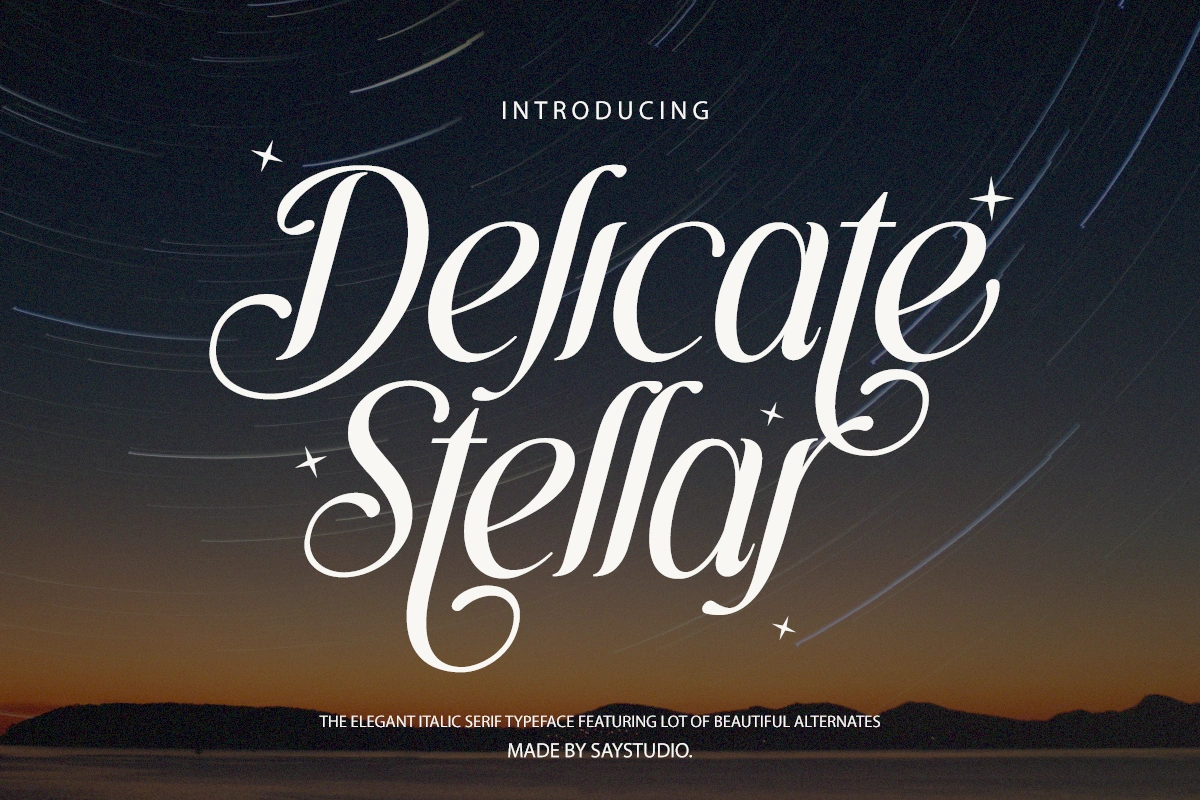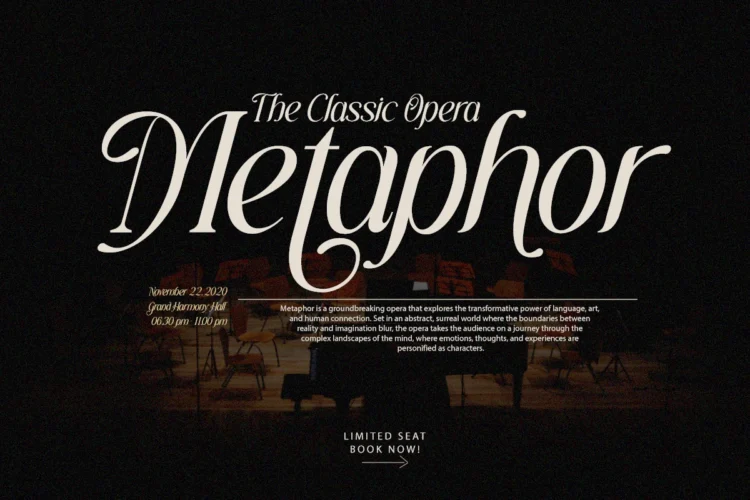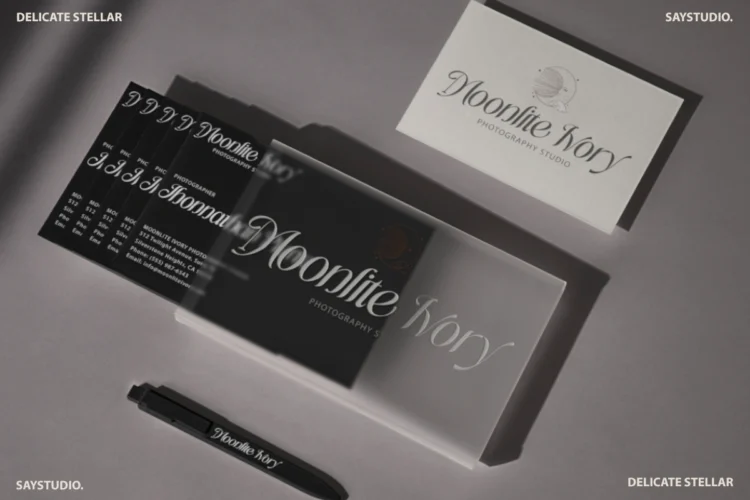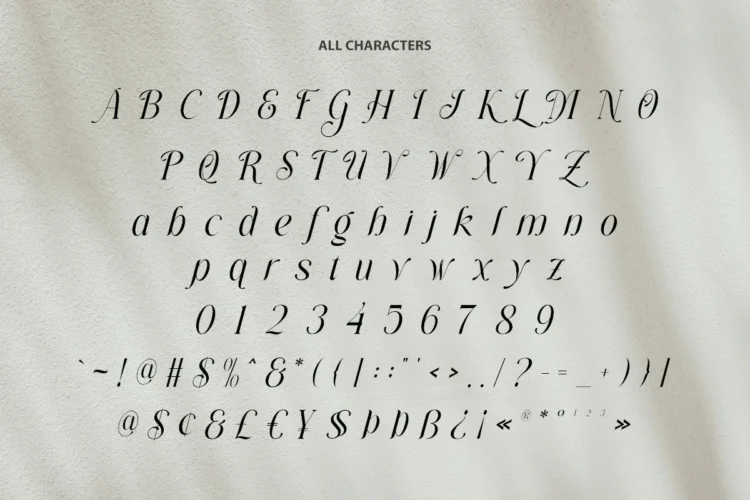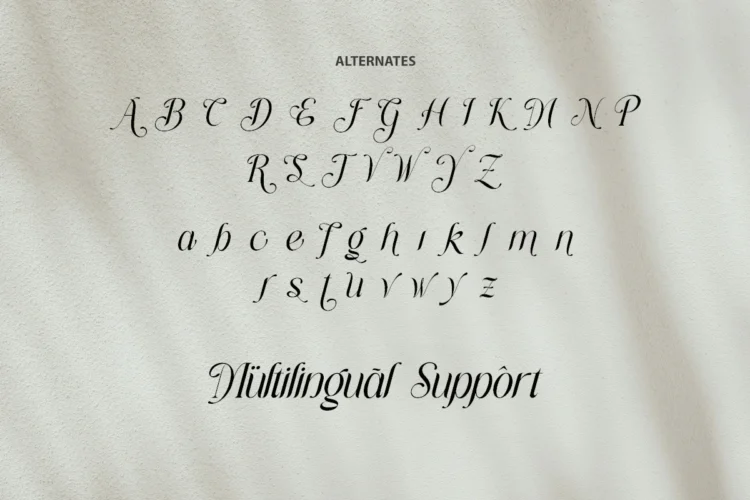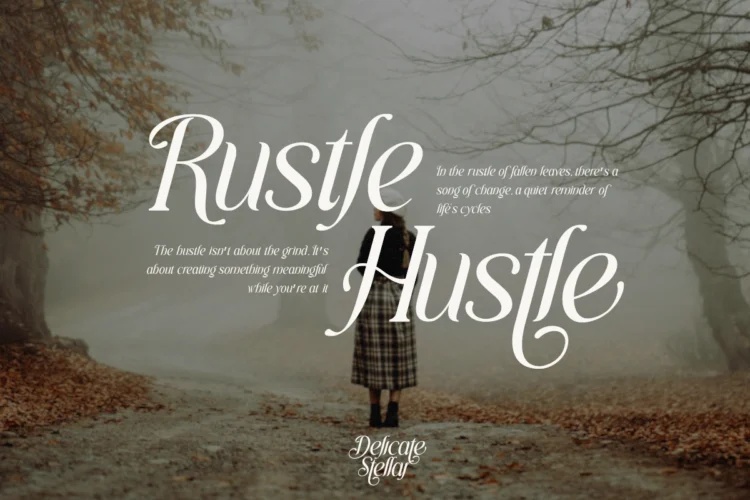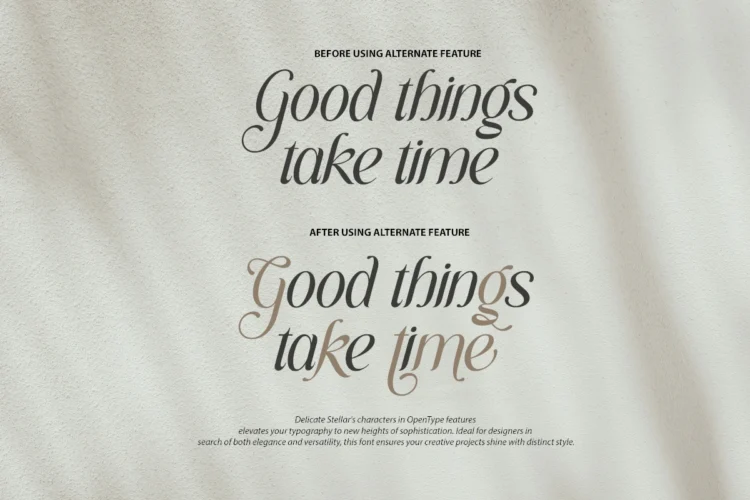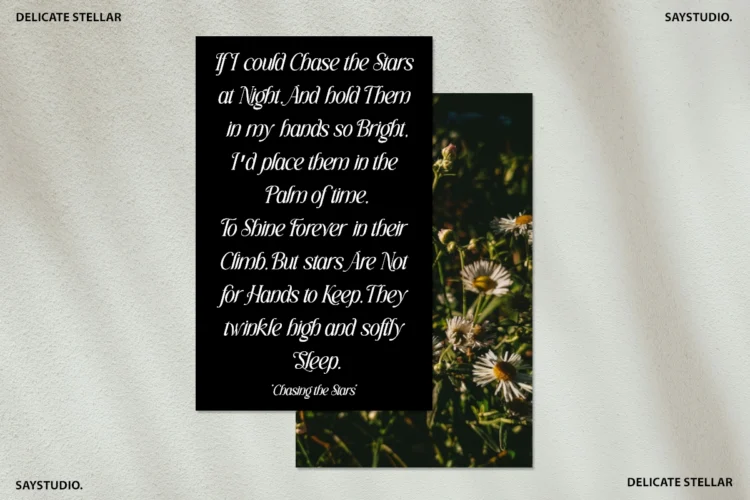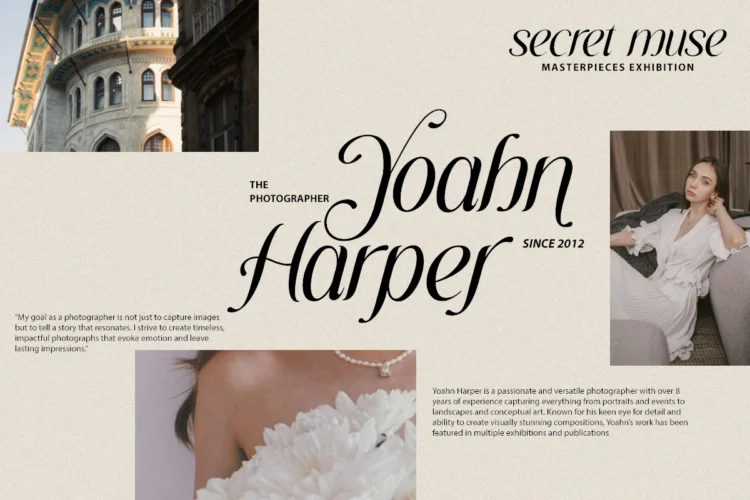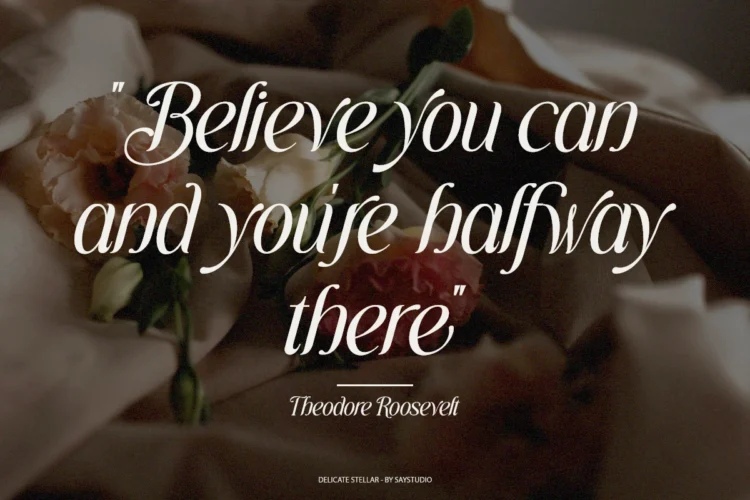
Delicate Stellar – Serif Font
Delicate Stellar is an Elegant italic font based from serif and script. Perfect for adding a touch of refinement to projects like brand identity, elegant invitations, product labels, clothing design, and more. With stylistic alternates integrated into its OpenType features, this font offers great versatility and creative freedom for any design.
- Alternates
- Multi Language
- Symbols and Number